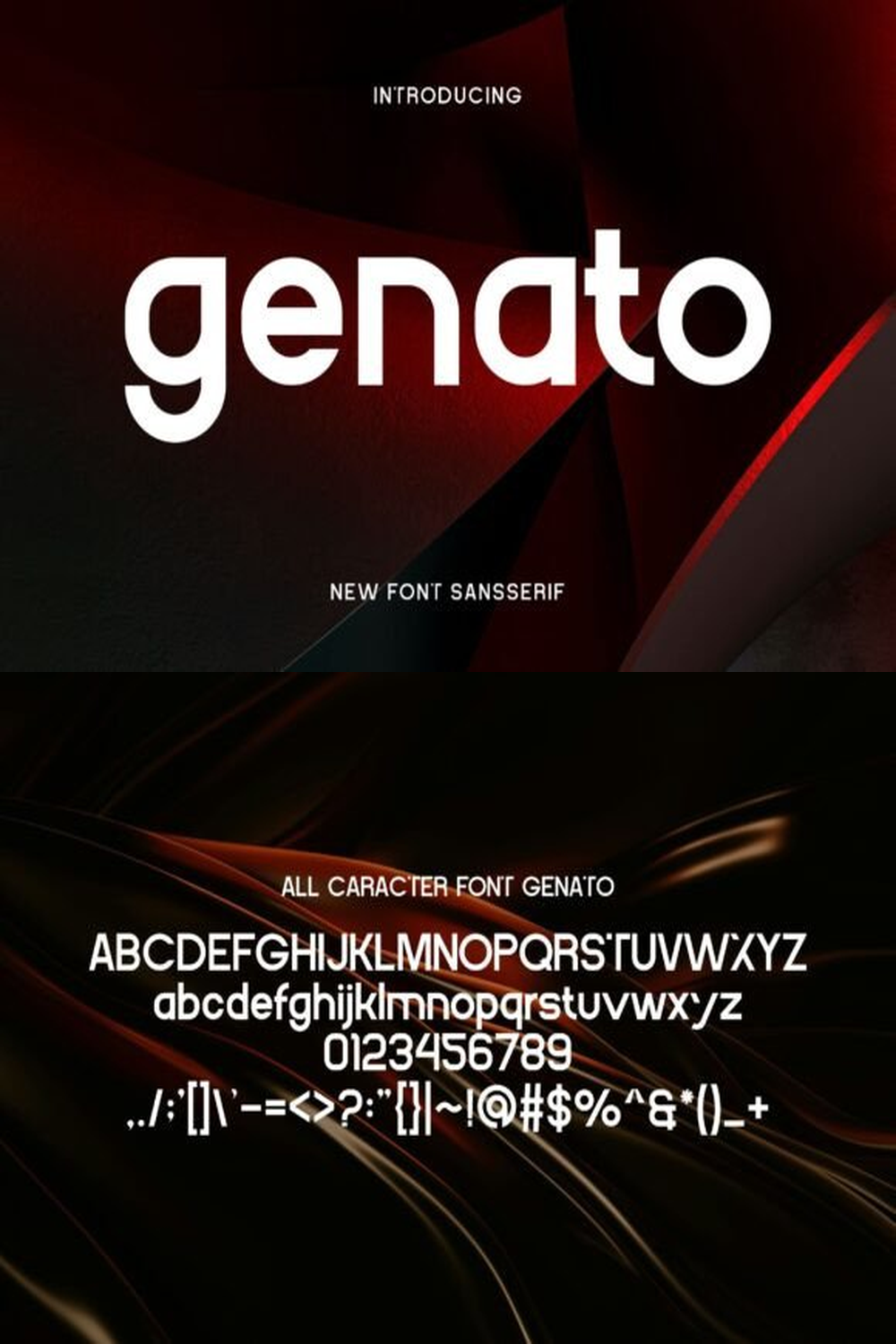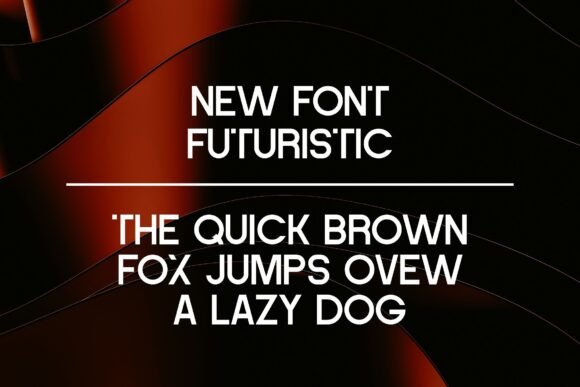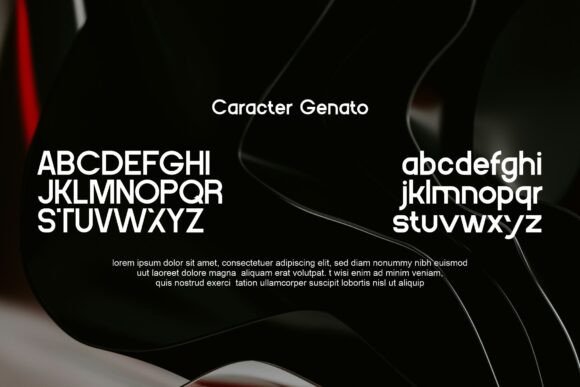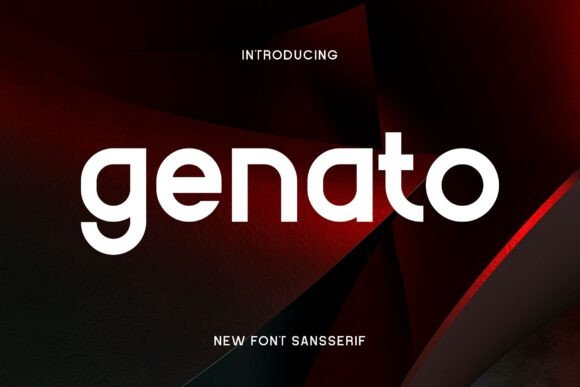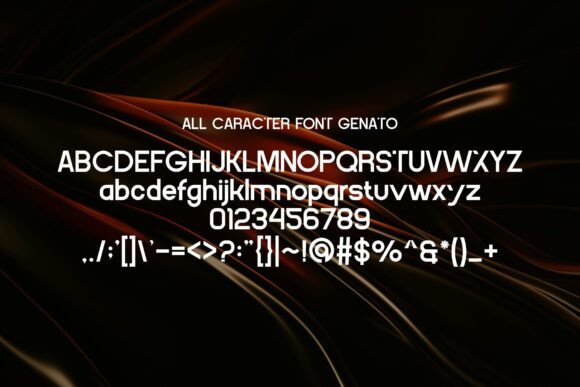
Genato Font
About the Genato Font
Step up your design game with Genato Font, a font that exudes confidence and style. Genato is a sans serif with a charming touch of style, This font also looks interesting because I added several alternative features that you can use. Don’t forget to add an extrude style to it to make it look more attractive for the design. For you, this font is suitable for those of you who want a design that displays an interesting side but is still relevant for a charming modern look. There’s nothing wrong if you feel all the experience of using this font in your designs, make this font one of the font collections on your computer